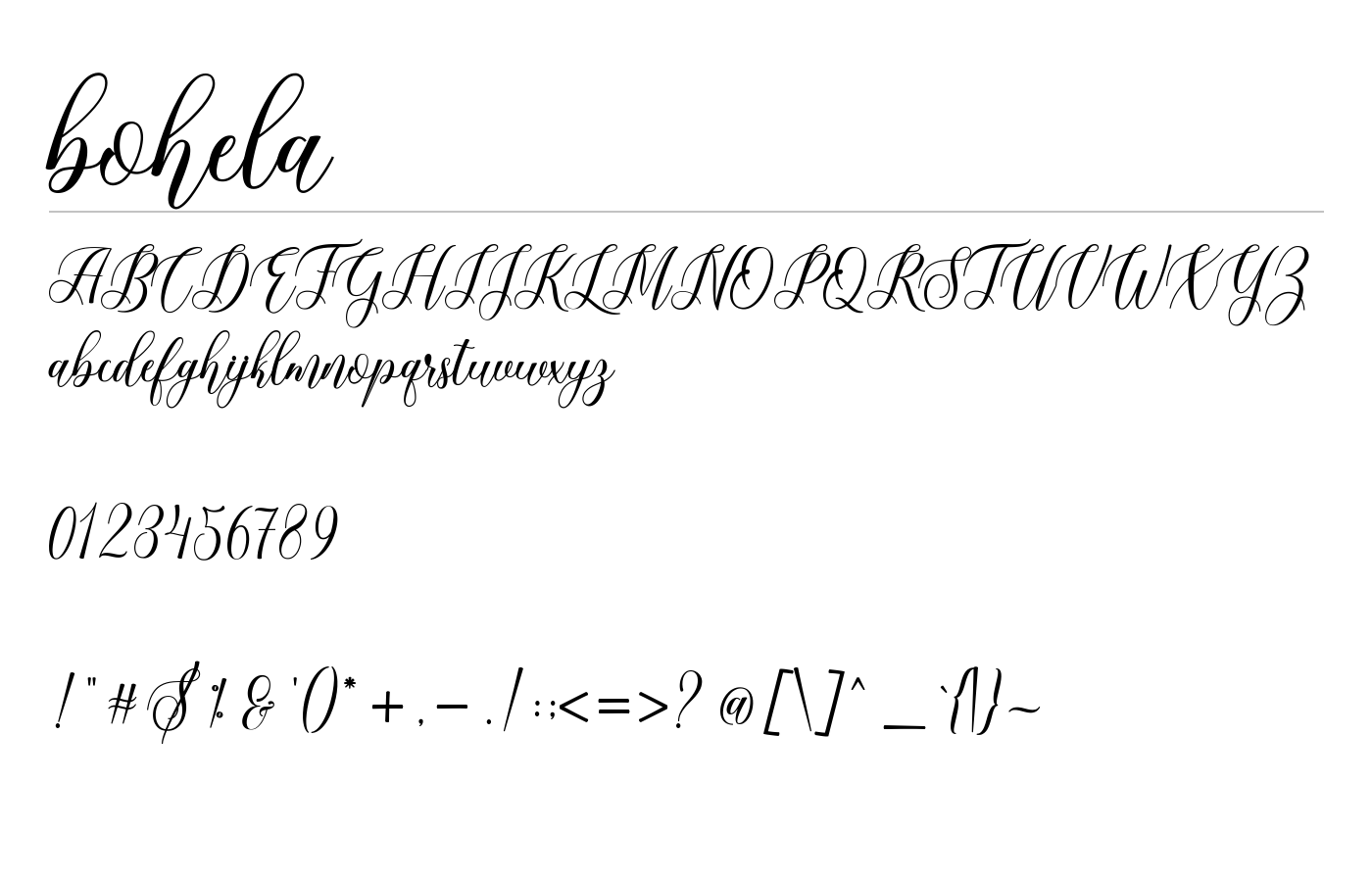
Bohela is an elegant script font characterized by its flowing, calligraphic letterforms with smooth, moderate contrast strokes and delicate swashes. It features both graceful uppercase and lowercase letters with a slightly narrow width and a refined, sophisticated style that works beautifully for formal invitations, luxury branding, and stylish editorial headlines. This font's charming, handwritten feel makes it perfect for adding a personal yet polished touch to wedding materials, fashion packaging, and elegant logos.
bohela Font
About bohela Font
| Font family | bohela Font |
| Designer | REKA SAFRIANI |